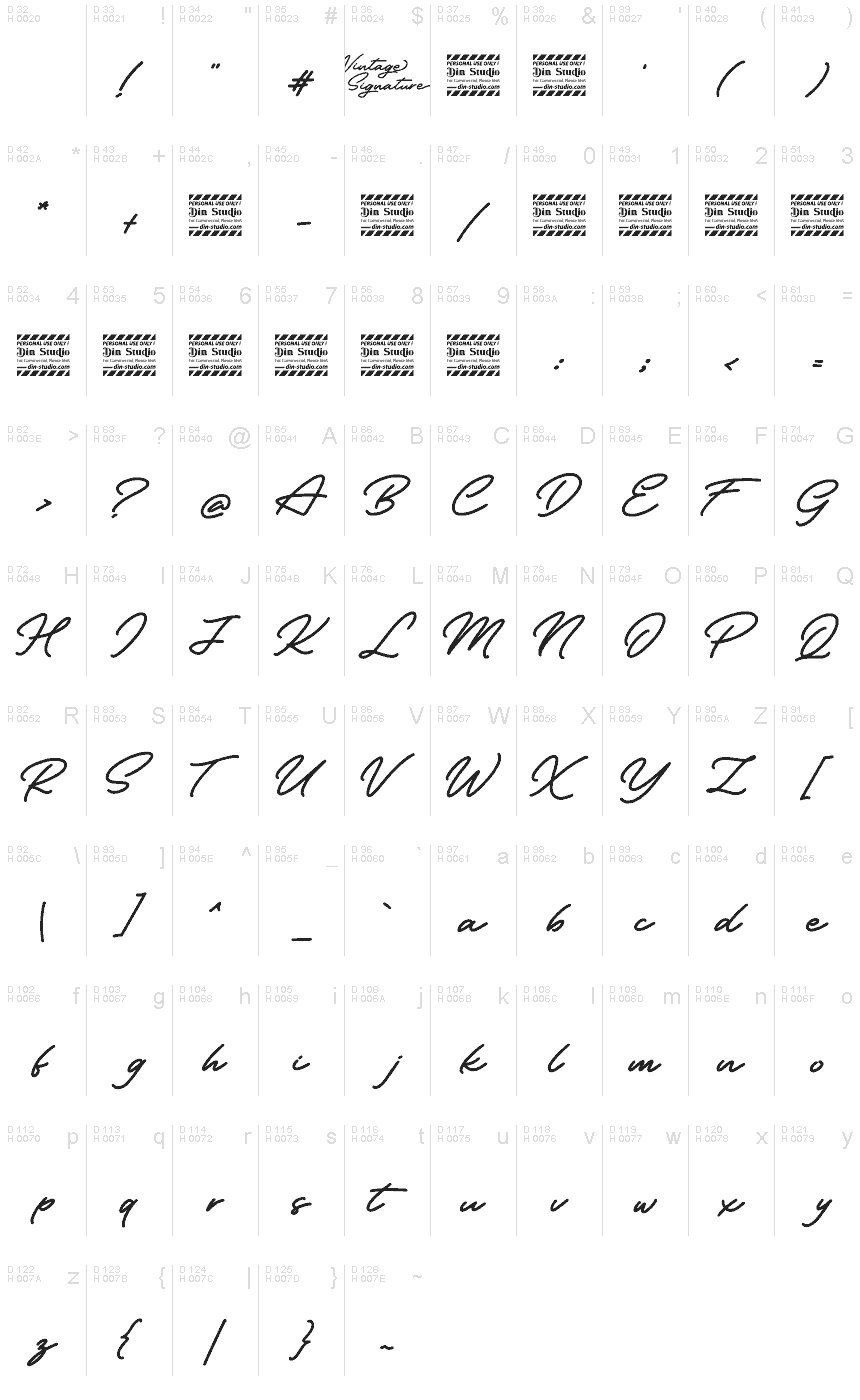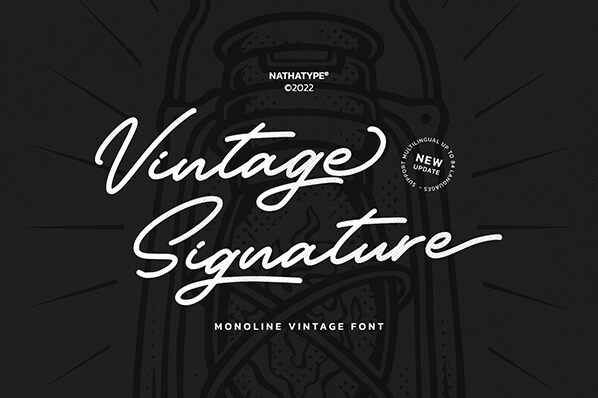
Vintage Signature font by Din Studio is an light, handwritten, signature style font with an elegant and sophisticated calligraphic look. Smooth flowing lines add expressive tones to every letter inspiring their nostalgic aura. All these features are carried from one character to the next for gorgeously planned and finished designs.
Use Vintage Signature in logos, advertisements, templates, signatures, watermarks with photography, social media posts or banners. Add it manually into products packaging design ideas or within any other project. Use this free calligraphy font for a whole finished outcome that can only witness originality and authenticity.